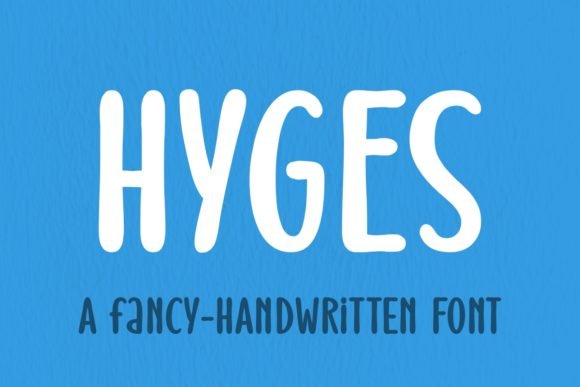
Unlocking the Power of Hand-Drawn Elegance: Hyges Font
There’s nothing quite like the thrill of creating something from scratch, whether it’s a logo, a social media post, or a simple greeting card. The blank page stares back at you, a canvas waiting for your imagination to come alive. And in that moment, you know that the right font can make all the difference. That’s where Hyges Font comes in – a beautiful, thick-lettered display font that’s perfect for adding a touch of handmade charm to your designs.
Designed with the help of a brush pen, Hyges Font is ideal for casual designs that need a bit of personality. From logos to headlines, titles to social media posts, this font is the perfect companion for designers looking to add a touch of elegance to their work. And with its simple yet striking design, Hyges Font is a valuable addition to any designer’s toolkit.
- Unique Characteristics: Features a unique blend of geometric and organic shapes, resulting in a distinctive and modern aesthetic
Hyges Font Review
When I first came across the Hyges Font, I was immediately drawn to its unique, modern aesthetic ✨. The clean lines, geometric shapes, and subtle curves give it a sleek, sophisticated look that’s perfect for contemporary designs. The font’s versatility shines through in its ability to work well in both digital and print formats, making it a great choice for a wide range of applications.
Some of the standout features of the Hyges Font include:
- High-quality, detailed typography that’s sure to make a statement ✨
- Excellent legibility, making it perfect for body text and headings alike
- A wide range of weights and styles to choose from, allowing for endless customization options
However, as with any font, there are some limitations to consider ⚠️. For example:
- Some users may find the font’s modern aesthetic too bold or overpowering for more traditional designs
- The font’s geometric shape can make it difficult to read at very small sizes
Overall, I’d say the Hyges Font is a solid choice for designers looking to add some modern flair to their projects. While it may not be suitable for every design, its unique aesthetic and high-quality typography make it a great addition to any font collection.